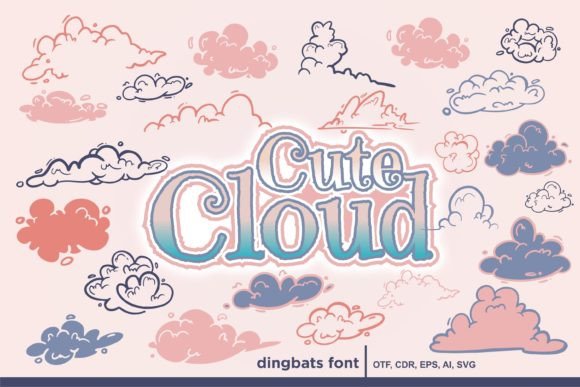
If you're looking for the perfect font to add some fun and character to your designs, then look no further than Cute Cloud Font! This charming dingbats font is the best font for creating cute logos that will make your brand stand out.
Created by onoborgol, Cute Cloud is a versatile and useful font that can be used for crafting, digital designing, presentations, or even greeting cards. With its unique and playful characters, Cute Cloud will add a touch of whimsy to any project.
One of the best things about Cute Cloud is its adaptability. This font is suitable for a wide variety of designs, from children's books and clothing to food packaging and stationery. Its simple, yet distinctive design will help your brand make a memorable impression.
But Cute Cloud isn't just a pretty font. It's also easy to use and customize, so you can make it your own. Whether you want to add color, adjust the size, or play around with the spacing, Cute Cloud gives you the flexibility to create the perfect design.